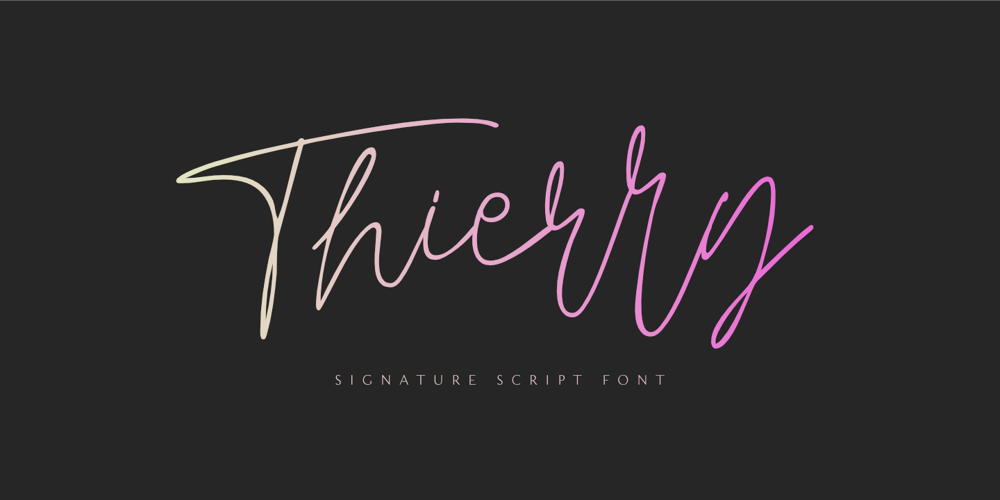
Thierry Font Family was designed by Nurul Hidayani and published by Olivetype. Thierry contains 1 styles and family package options. Thierry is an elegant signature script font. This versatile script font has a wide spectrum of applications ranging from logotype, product branding to headlines. Add a romantic feel to your next project with this modern calligraphy-styled font. So what’s included : Basic Latin A-Z & a-z Numbers, symbols, and punctuations Ligatures Accented Characters : ÀÁÂÃÄÅÆÇÈÉÊËÌÍÎÏÑÒÓÔÕÖØŒŠÙÚÛÜŸÝŽàáâãäåæçèéêëìíîïñòóôõöøœšùúûüýÿžß Thank you